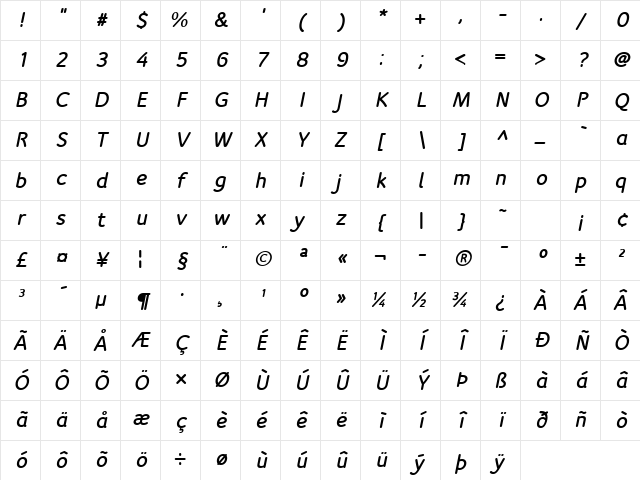
Speak-HeavyItalic Regular
Foundry: FSI FontShop International GmbH
Designer: Jan Maack
Design Context for Speak-HeavyItalic
Speak-HeavyItalic is a composed and adaptable typeface that performs quietly and consistently across a wide range of design contexts. The slanted form adds forward momentum and visual energy.
Pro Tip: Use Speak-HeavyItalic for emphasis, pull quotes, and subheadings where its slanted energy can add rhythm to the layout.
Who designed the Speak-HeavyItalic Regular font?